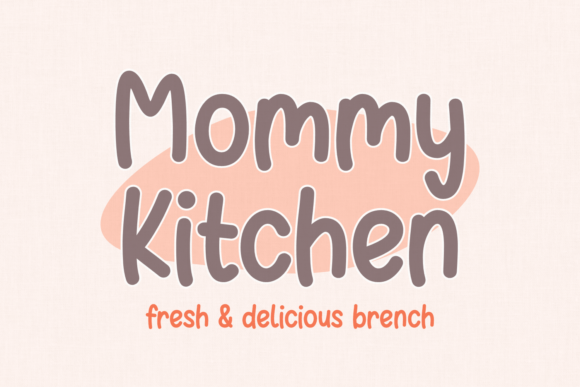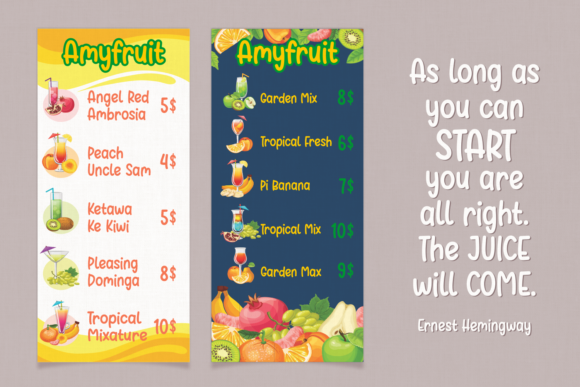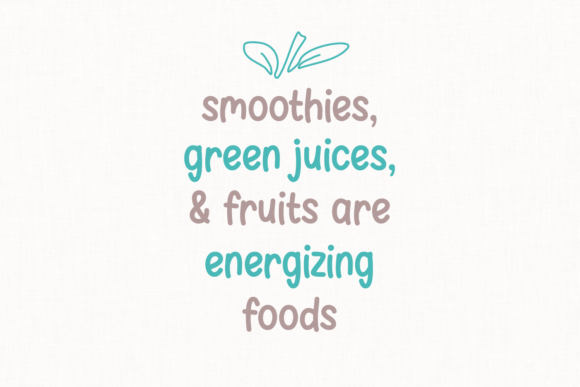
Introduction to Rimbang Marita Font
Rimbang Marita is a playful and bouncy handwritten font that will impress you with its versatility.
It works great on children-related designs, headlines, magazines, social media posts, advertising materials, websites, and many others .
Key Features of Rimbang Marita Font